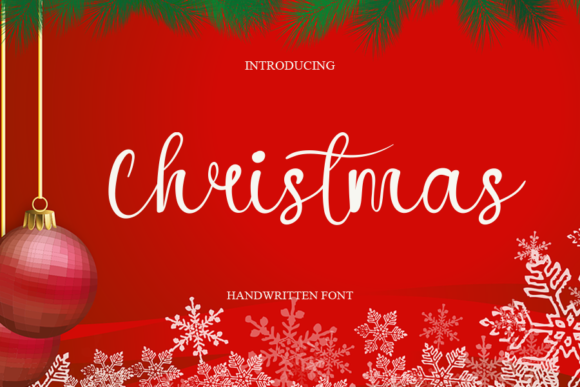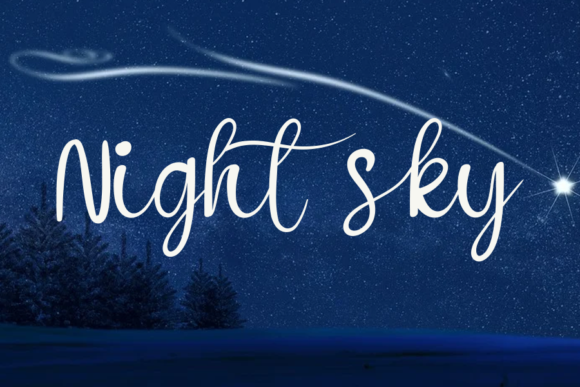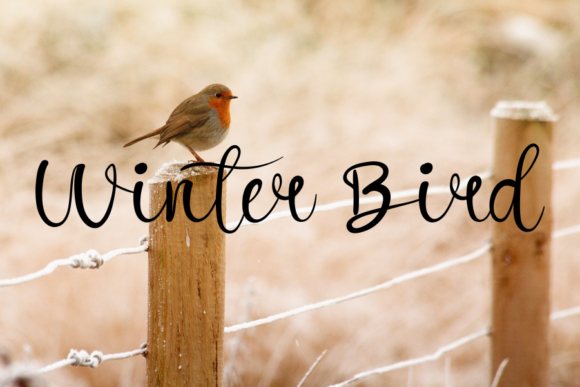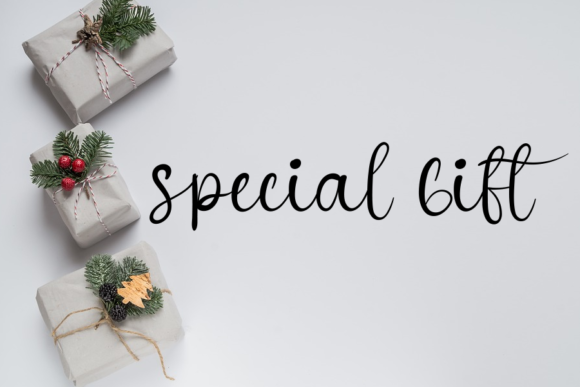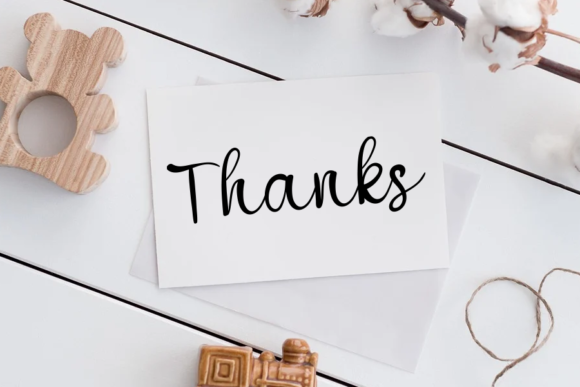
Christmas is a sweet, whimsical and flowing script font. Featuring characters that dance along the baseline, this font will add a luxury spark to any design project that you wish to create!